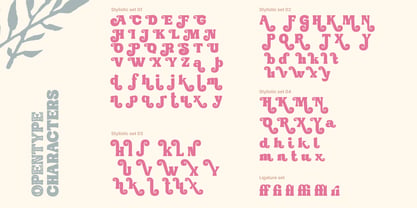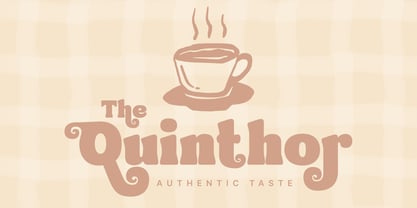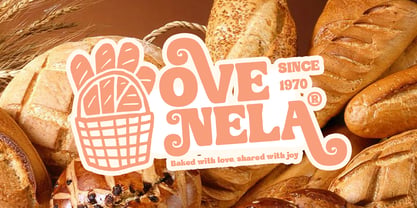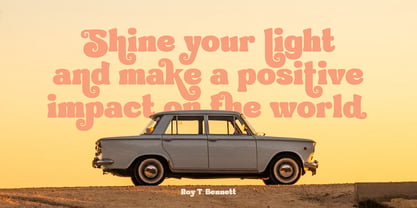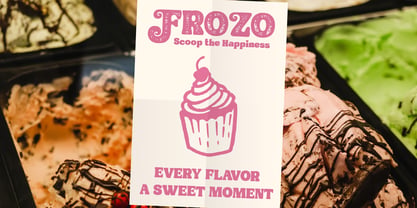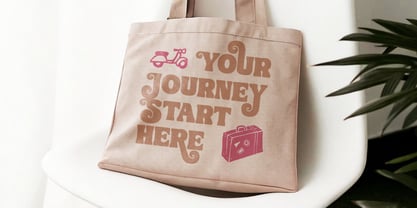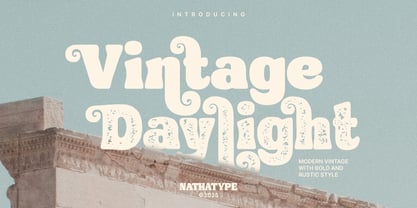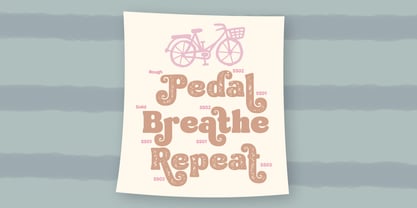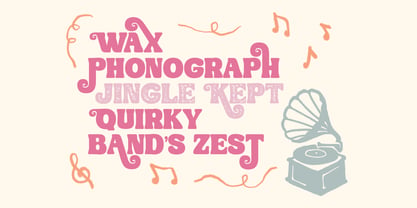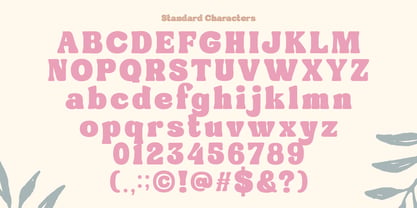
Vintage Daylight
The Vintage Daylight Font Family was designed by Donis Miftahudin and published by Nathatype. Vintage Daylight contains 2 styles and family package options. More about this family
Vintage Daylight is a bold display font that blends modern design with nostalgic charm. Featuring a rugged, textured finish, this rough version captures the essence of timeless vintage aesthetics while adding a contemporary edge. Its strong weight and distressed details create a striking presence Whether for retro-inspired projects or modern designs with a rustic touch, Vintage Daylight delivers character and impact in every letter. As a bonus, this font gives illustrations. n addition, enjoy the features here.
Features:
• Stylistic Sets
• Ligatures
• Multilingual Supports
• Numerals and Punctuations
Vintage Daylight fits in branding, packaging, logos, posters, invitations, and many more designs. Find out more ways to use this font by taking a look at the font preview.